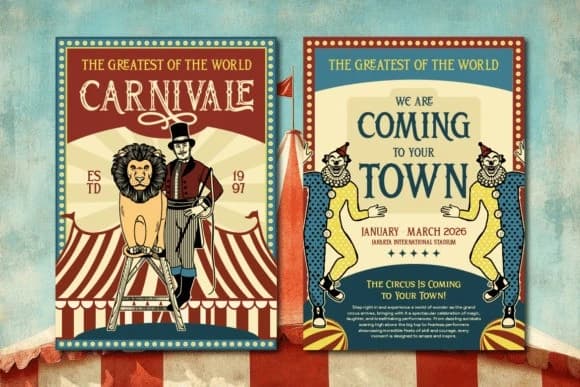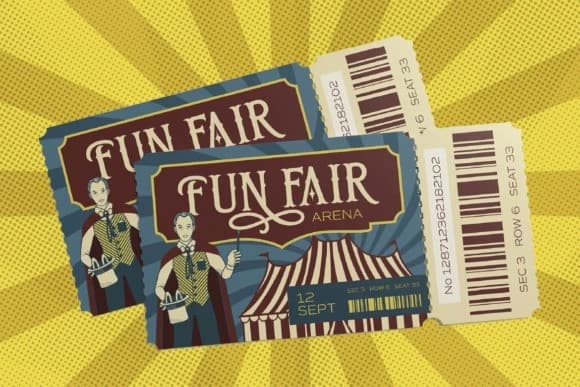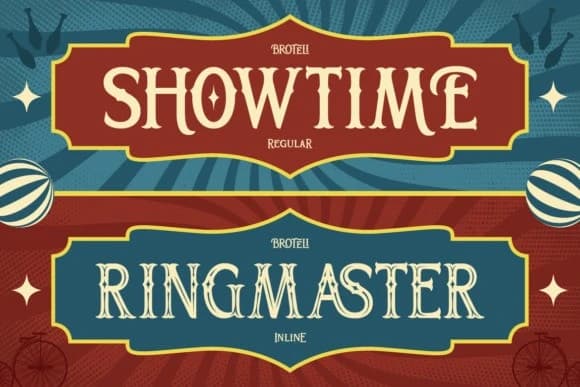
Broteli Vintage Font
Broteli Vintage Font, a bold vintage display font inspired by classic carnival posters, retro signage, and old-school showtime aesthetics. With its decorative serif style, playful curves, and strong personality